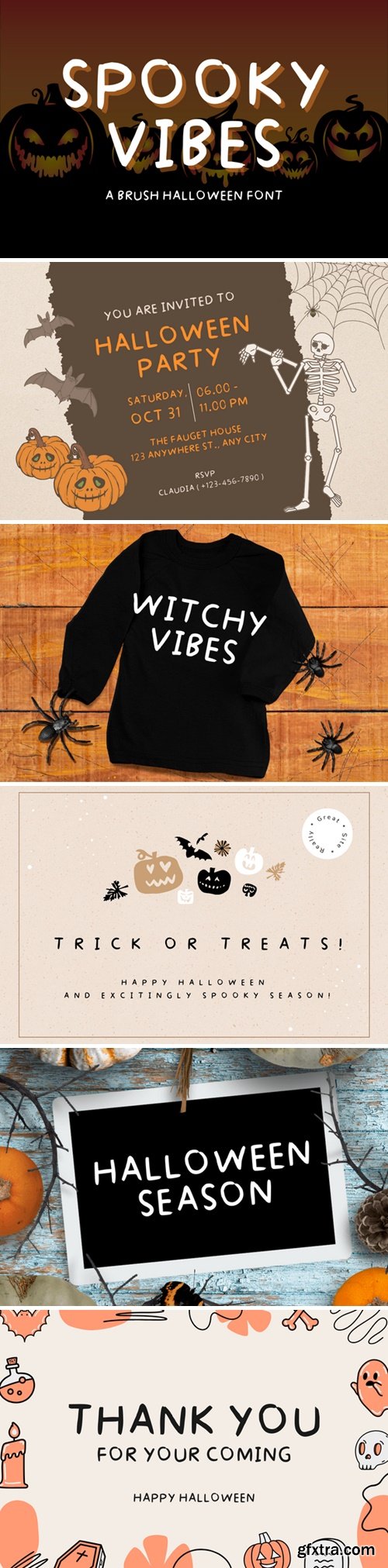
Spooky Vibes is a handwritten brush script designed to charm your projects. From quotes and packaging to whatever else, this font will send the message you desire.